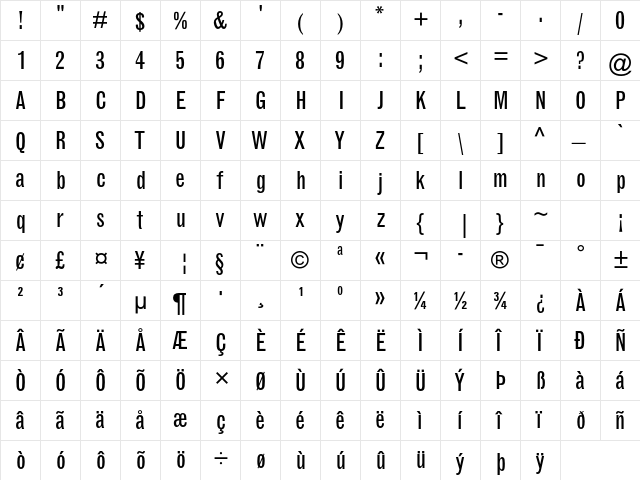
Grotesque MT Std Condensed
Design Context for Grotesque MT Std Typeface
Grotesque MT Std takes a measured approach to typography — its balanced proportions and neutral character make it a reliable workhorse for both digital and print work. The condensed width makes it efficient for tight spaces without sacrificing legibility.